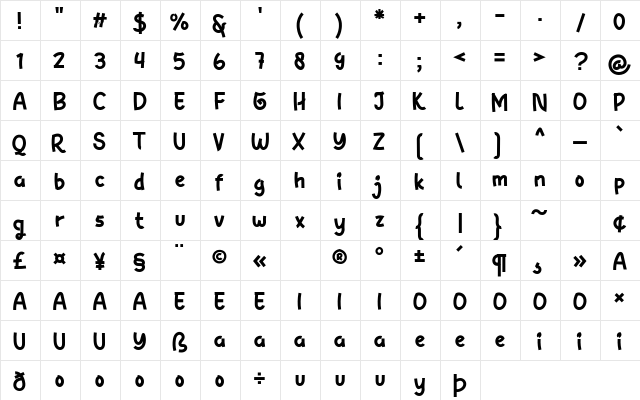
THE RainK Regular
| Designer | rozi |
Design Context for THE RainK Typeface
THE RainK takes a measured approach to typography — its balanced proportions and neutral character make it a reliable workhorse for both digital and print work.